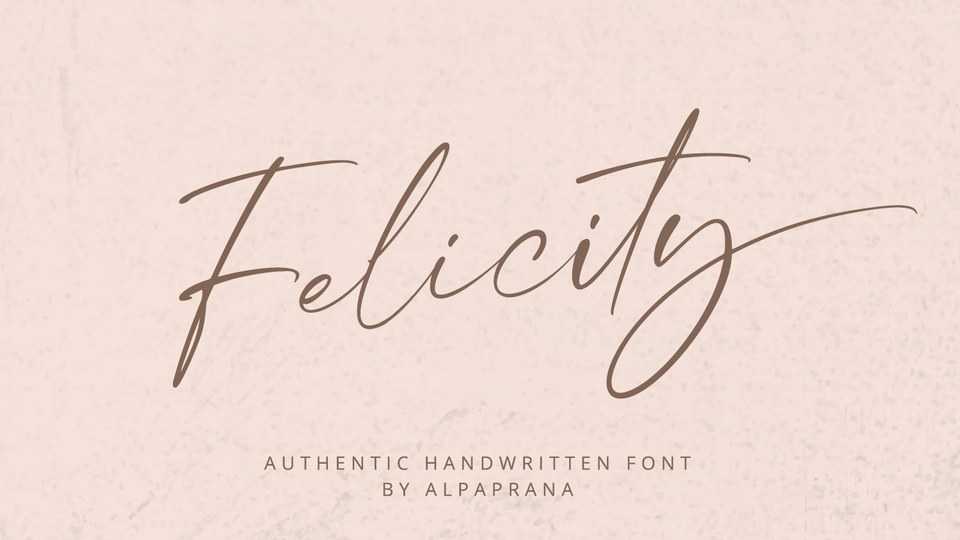
Download Felicity font, a stunning handwritten typeface with authentic and casual feel. Felicity will be perfectly used for Branding, logo design, clothing, magazine, photography, special events and other design project.
Designer: Alpaprana Studio